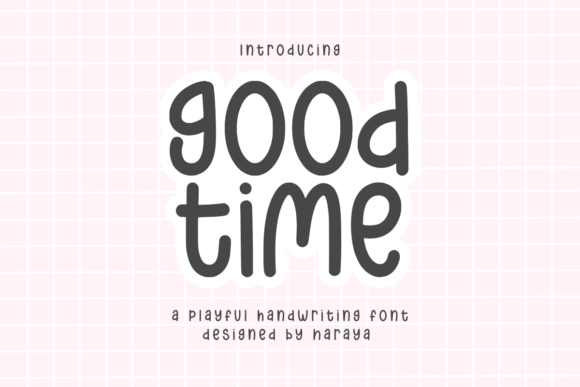
The Perfect Font to Brighten Up Your Day
You know that moment when you’re brainstorming ideas for your next creative project, and everything just clicks into place? The colors, the layout, the words – it all comes together in a beautiful, harmonious way that makes your heart skip a beat. For designers like you, that moment is pure magic. And when it comes to capturing that special something, the right font can make all the difference.
Enter Good Time Font, a playful and aesthetic handwriting display font designed to bring a sense of joy and personal warmth to your creative projects. With its clean, bouncy lines and charming monolinear weight, this font is the perfect choice for designers looking to add a friendly yet modern vibe to their work. Whether you’re creating whimsical quote designs, playful branding, or craft-based businesses like custom acrylic keychains or vinyl stickers, Good Time Font is the perfect partner to bring your ideas to life.
Good Time Font Key Features
- Unique Characteristics: Features a unique blend of modern and vintage design elements, making it ideal for use in creative and artistic projects.
Good Time Font Review
Good Time Font is a fun and energetic sans-serif font that’s sure to grab your attention. Here are some of the things that work well:
- ✨ Its bold and playful personality makes it perfect for headlines, titles, and other attention-grabbing text.
- ✨ The font is highly legible, even at smaller sizes, making it suitable for body text and longer passages.
- ✨ The font comes in a range of weights, from light to bold, giving you plenty of options to customize your design.
- ⚠️ The font can feel a bit too playful or juvenile for more formal or professional designs.
- ⚠️ The font’s irregularities and quirks may not be suitable for text-heavy designs or those that require a more traditional or classic look.
- ⚠️ The font’s width can vary depending on the weight and size, which may require some manual adjustments in your design.
Overall, Good Time Font is a great choice for designers who want to add some personality and fun to their designs. However, it may not be the best fit for more formal or traditional designs.
Good Time Font is a playful, modern font that works well for:
– Flyers and posters
– Business cards and branding materials
– Digital signage and advertisements
Tips for getting the most out of Good Time Font:
– Use it in combination with bright, bold colors to create a visually striking design.
– Experiment with different font sizes and styles to add visual interest.
– Consider pairing Good Time Font with a serif or script font for a unique look.
Alternatives to Good Time Font
Great Vibes Font is a modern, elegant script font perfect for creating a fun and energetic atmosphere. It’s ideal for titles, headings, and quotes in designs that require a playful touch. Great Vibes Font is similar to Good Time Font in its playful and energetic vibe, but it’s more refined and sophisticated.
Pacifico Font is a beautiful, cursive font that evokes a sense of relaxation and calmness. It’s perfect for designs that require a soothing and gentle touch, such as spa or wellness branding. Pacifico Font is more laid-back and serene compared to Good Time Font, making it suitable for different design contexts.